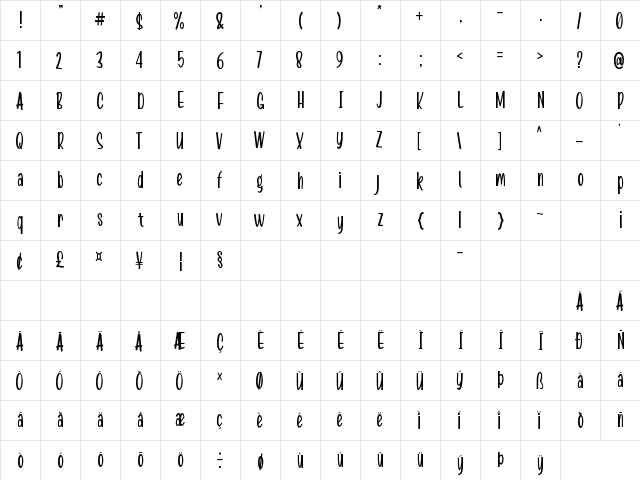
Boochain Regular
| Designer | Toni Dzulham |
Design Context for Boochain Typeface
Boochain is a composed and adaptable typeface that performs quietly and consistently across a wide range of design contexts.